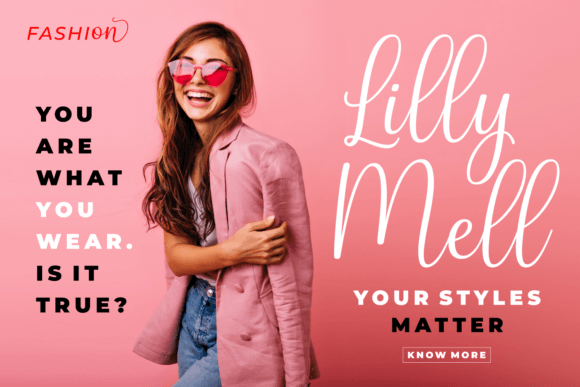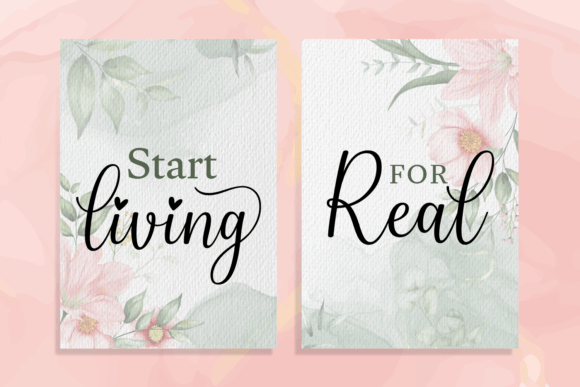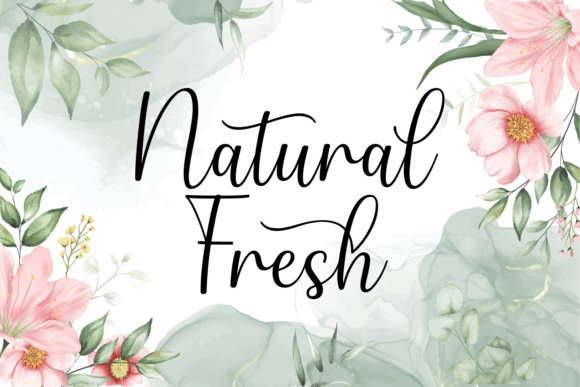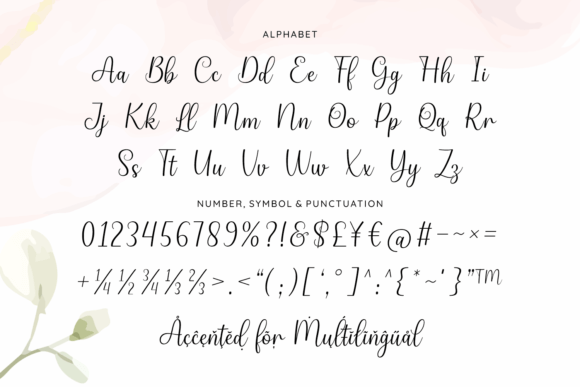
Happy Style Font
About Happy Style Font
Happy Style is a beautiful and elegant font script. The romantic swashes and flowing rhythm of this font will add a touch of finesse to any design! It looks stunning on wedding invitations, thank you cards, quotes, greeting cards, logos, business cards, and any other design.